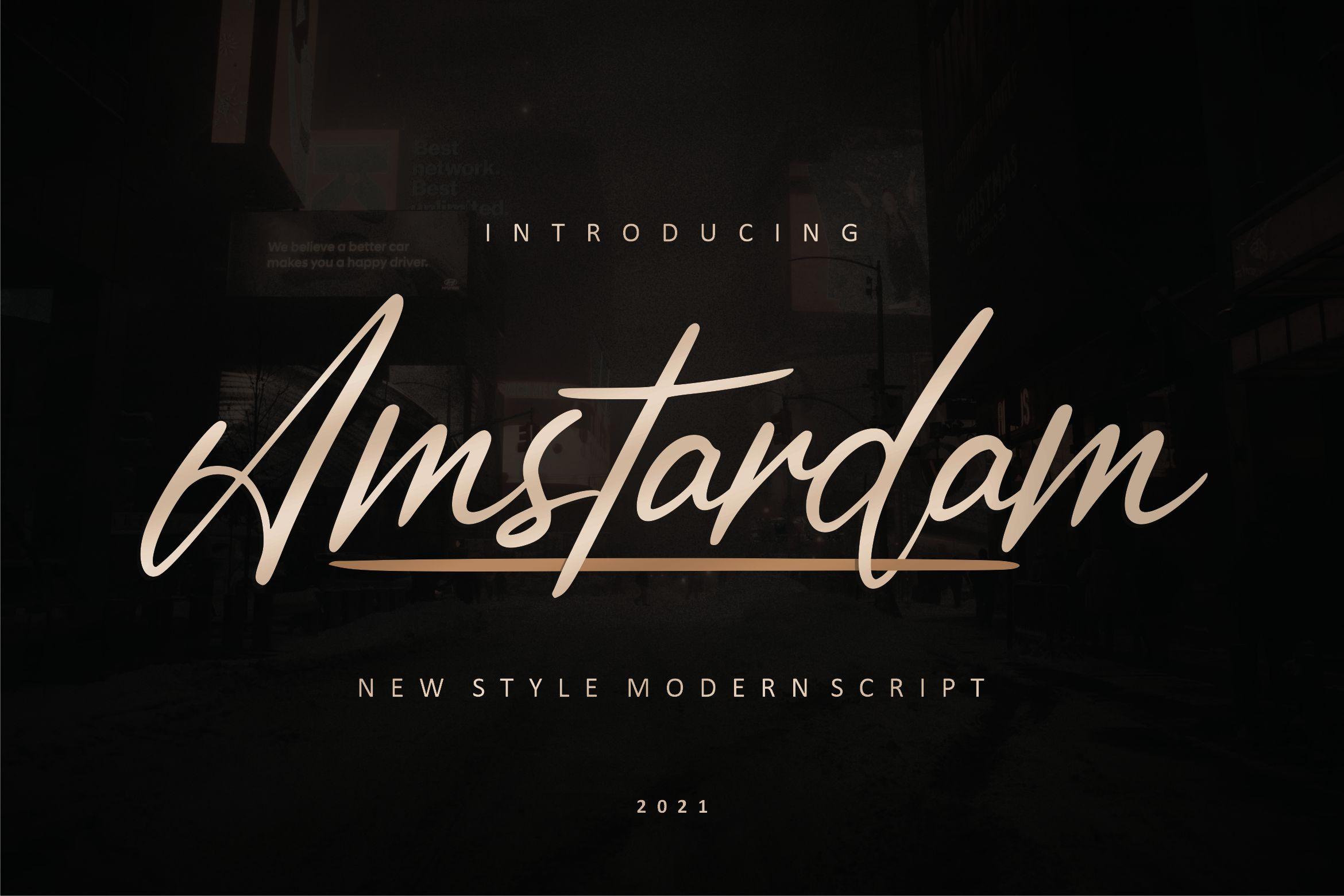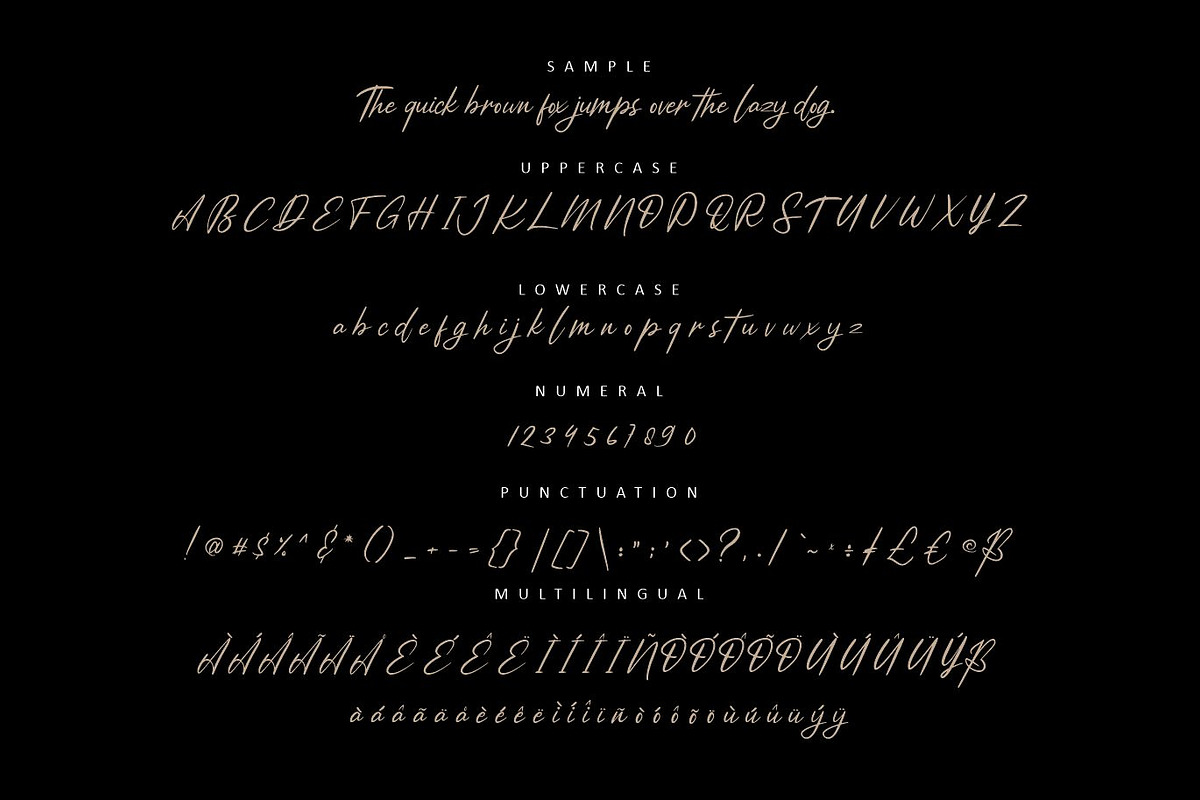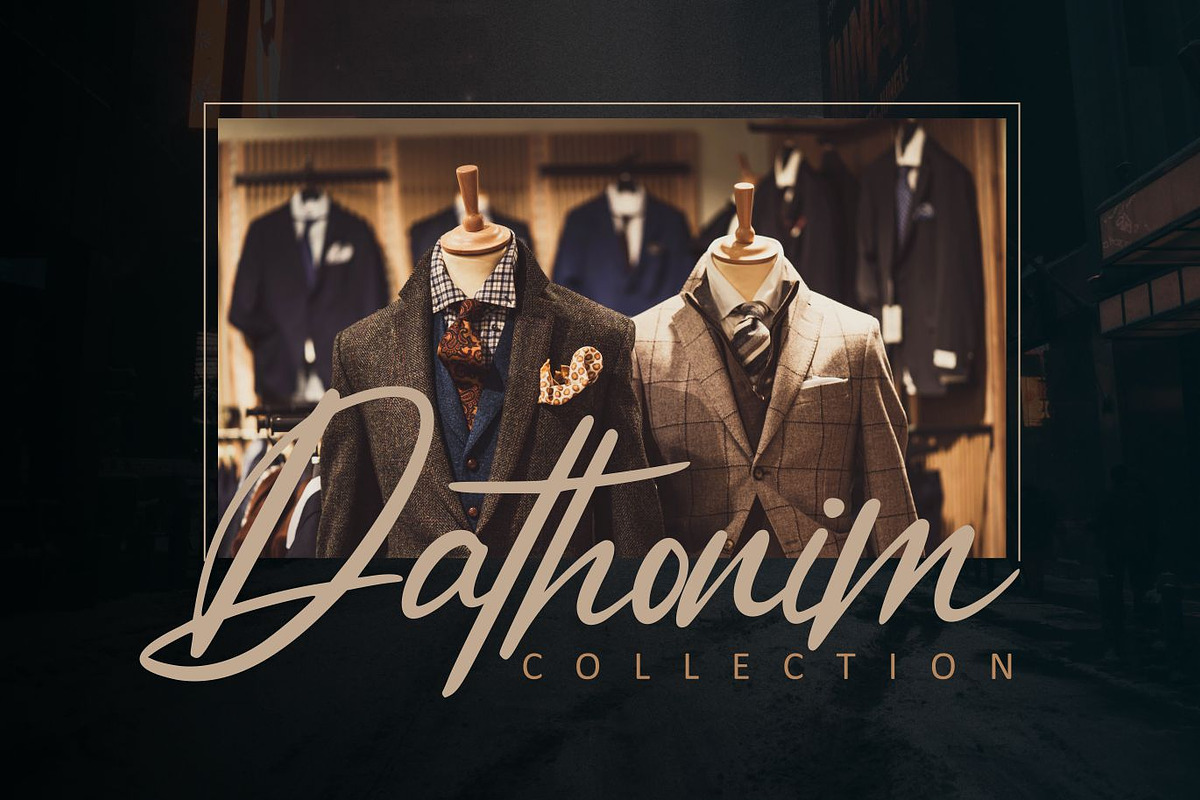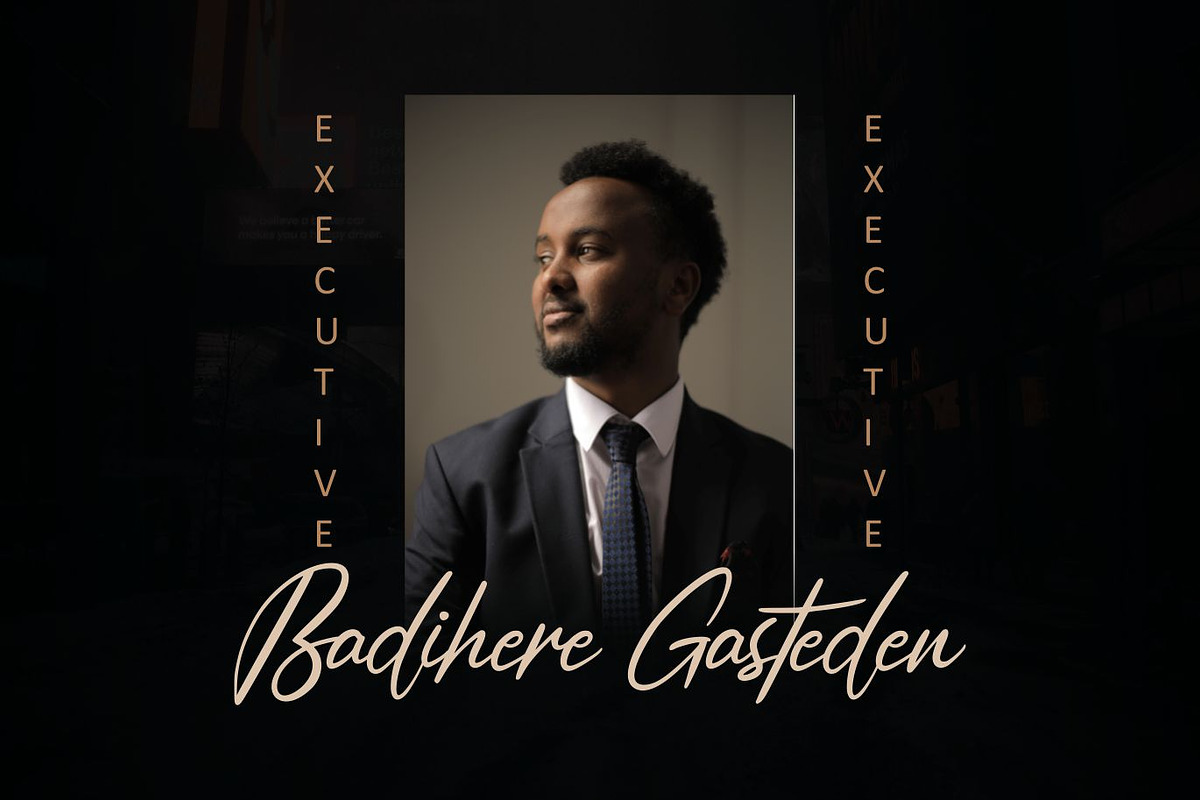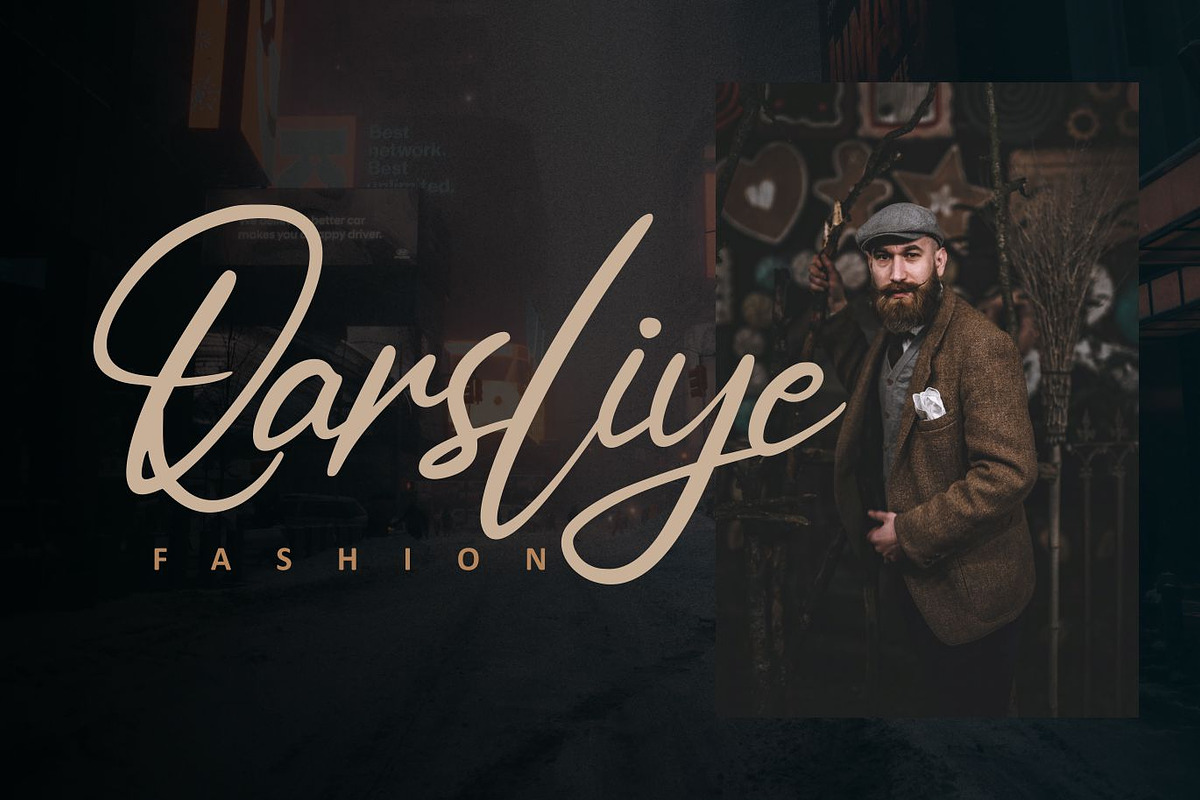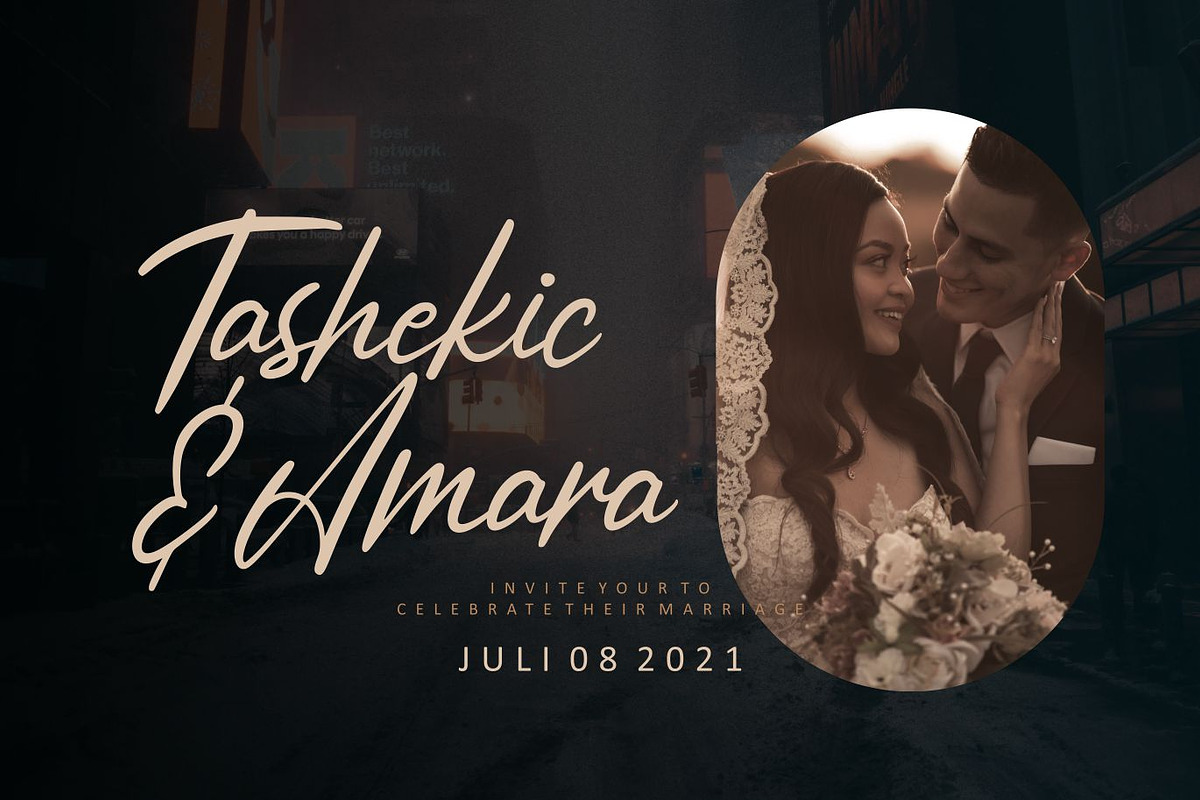
Amstardam | Modern Script Font
The Amstardam font is a simple and classy font, coming with open type features such as style alternatives, initial and final shapes, and ligatures. We keep this font looking elegant, classy, easy to read, stylish, attractive and easy to use.
Amstardam Font is a great choice for watermarks on photography, signature or signature logo designs, quotes, album covers, business cards and many other design projects. From business cards to photo watermarks, Amstardam is here to take your work to the highest level
Multilingual Support : AÀÁÂÃÄÅCÇDÐEÈÉÊËIÌÍÎÏNÑOÒÓÔÕÖUÙÜÚÛWYÝŸỲŸß